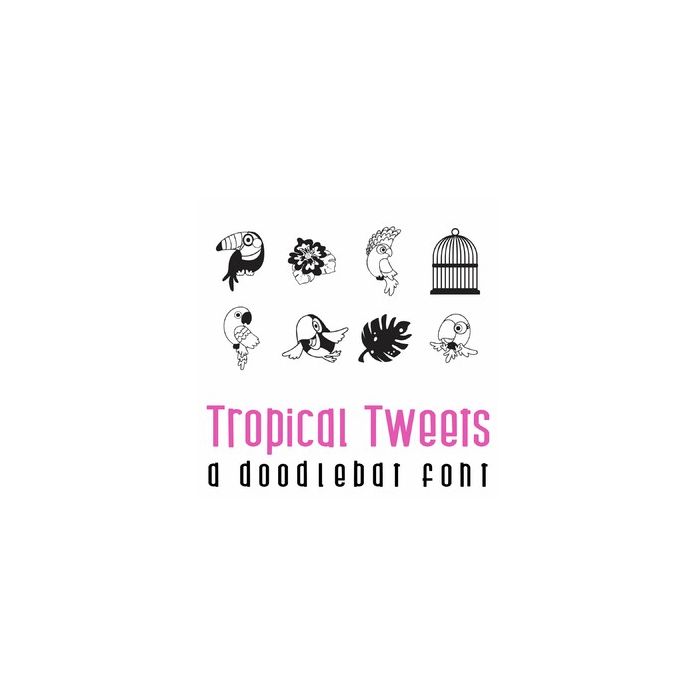
This fun doodle style doodlebat font features 26 tropical birds and florals. Perfect for cards, crafts, gifts, decor, scrap book pages, planner stickers and more!